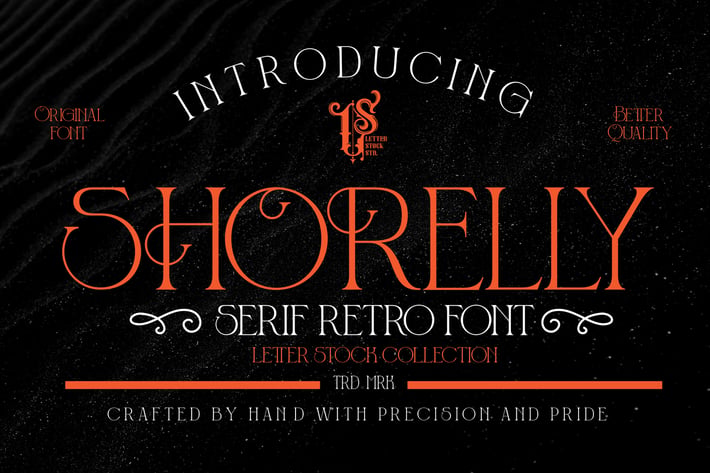
Shorelly - Serif Decorative Font
Shorelly
This pair was inspired by beutiful lettering design that i saw on some coffee shop, It was crafted by hand specially to add natural handmade feeling in its brand identity than i make it clean with pentool.
If you need a serif decorative font style, Shorelly font is grat choice for you to make your design authentic and unique.
Shorelly Font is very good looking in logo, movie poster design, youtube tumbnail, labels, product packaging, invitations, advertising and others.